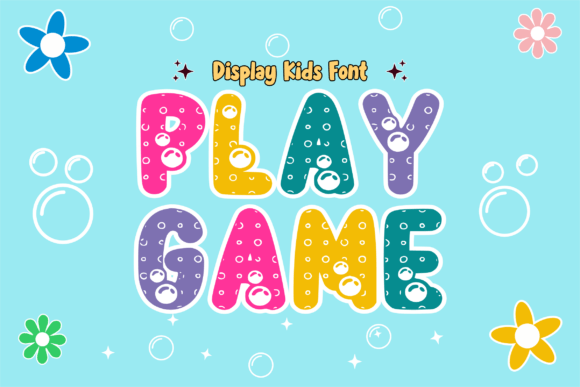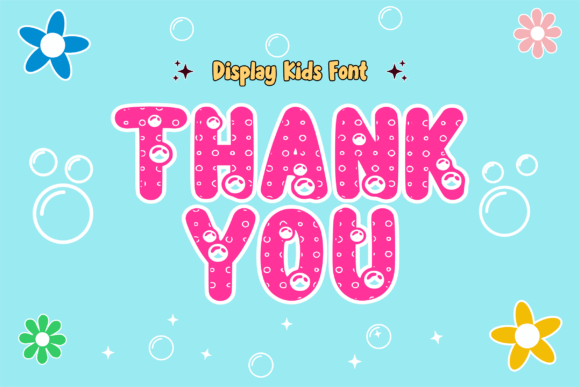
Bubble Charm Font: The Ultimate Cheerful Decorative Font for Designers and Crafters
Are you tired of using the same old fonts for your designs? Look no further! We’re excited to introduce “Bubble Charm”, a delightful decorative bubble font that’s perfect for designers and crafters who want to add a touch of whimsy and fun to their projects. In this article, we’ll dive into the features and benefits of Bubble Charm, and explore how you can use it to take your designs to the next level.
What is Bubble Charm Font?
Bubble Charm is a cheerful decorative bubble font that’s specifically designed with a children’s theme in mind. Each character is carefully crafted to be bubbled, making it easy to recognize and perfect for use in a variety of designs. Whether you’re creating sublimation designs for t-shirts, mugs, tote bags, animations, comic titles, or more, Bubble Charm is the ideal font to bring a smile to your audience’s faces.
Key Features of Bubble Charm Font
- Cheerful and Whimsical Design: Bubble Charm features a playful and bubbly design that’s sure to capture the attention of your audience.
- Easy to Recognize: Each character is carefully crafted to be easily recognizable, making it perfect for use in designs where clarity is key.
- Versatile: Bubble Charm can be used in a wide range of designs, from sublimation designs for t-shirts and mugs to animations and comic titles.
- Children’s Theme: The font’s children’s theme makes it perfect for designs aimed at kids or families.
How to Use Bubble Charm Font in Your Designs
Bubble Charm is incredibly versatile, and can be used in a wide range of designs. Here are a few ideas to get you started:
- Sublimation Designs: Use Bubble Charm to create fun and colorful sublimation designs for t-shirts, mugs, tote bags, and more.
- Animations: Add a touch of whimsy to your animations with Bubble Charm’s playful design.
- Comic Titles: Use Bubble Charm to create eye-catching comic titles that are sure to stand out.
- Children’s Products: Bubble Charm is perfect for designs aimed at kids, such as children’s books, toys, and games.
Why Choose Bubble Charm Font?
So why choose Bubble Charm over other fonts? Here are just a few reasons:
- Unique Design: Bubble Charm features a unique and playful design that’s sure to set your designs apart.
- Ease of Use: The font is incredibly easy to use, with each character carefully crafted to be easily recognizable.